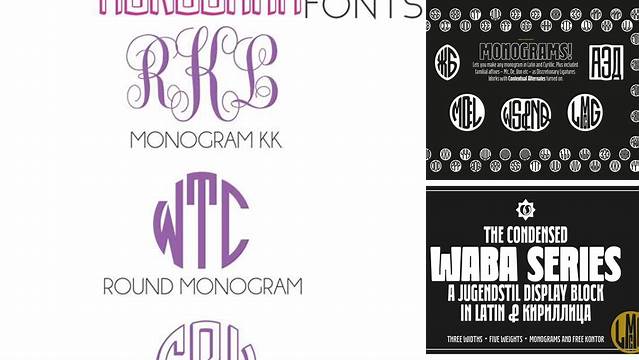
Waba Monogram Font: Free Download Guide
Hey guys! Ever stumbled upon a monogram that just pops and wondered what font they used? Chances are, it might just be the Waba Monogram Font. This font is super popular for its clean lines and versatility, making it a go-to for everything from wedding invites to branding projects. And the best part? You can often find it as a free download! But before you rush off to grab it, let’s dive deep into everything you need to know about the Waba Monogram Font and how to snag it safely and legally.
What is Waba Monogram Font?
Waba Monogram Font is a typeface specifically designed for creating monograms. Unlike regular fonts, it often features interlocking letters or unique designs that make monograms stand out. Monogram fonts like Waba are perfect for adding a personal touch to various projects, from personal stationery to business logos. Its unique design sets it apart, making it a favorite among designers and DIY enthusiasts alike. The Waba Monogram Font is designed to be easily combined and customized. This allows you to create unique monograms that reflect your personal style or brand identity. The font often includes multiple variations of each letter, giving you even more creative freedom.
Using Waba Monogram Font in Design Projects
Now for the fun part! How can you use your new waba monogram font? The possibilities are endless. Think wedding invitations, business cards, logos, social media graphics, and personalized gifts. Monograms add a touch of elegance and personalization to any project. When using the Waba Monogram Font in your design projects, consider the overall aesthetic you're trying to achieve. If you're going for a classic and timeless look, pair the font with simple and elegant design elements. If you want to create a more modern and trendy design, experiment with bold colors and geometric shapes. The Waba Monogram Font is versatile enough to work with a variety of design styles, so don't be afraid to get creative. Consider using the font in combination with other fonts to create a more dynamic and visually appealing design. For example, you could use the Waba Monogram Font for the initials in a logo and a sans-serif font for the company name. This can help create a balanced and professional look.